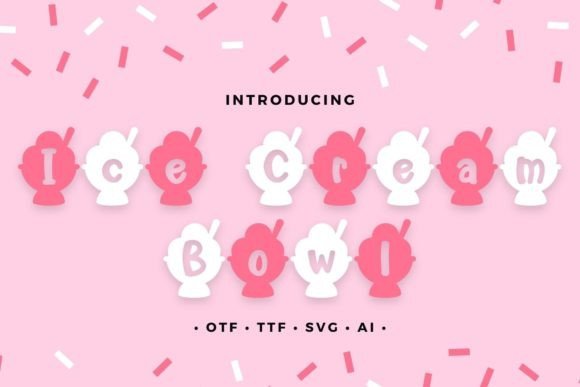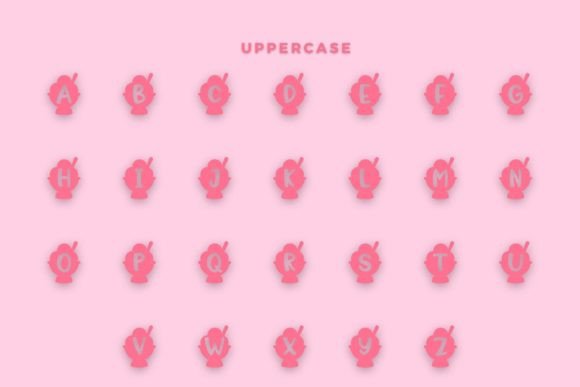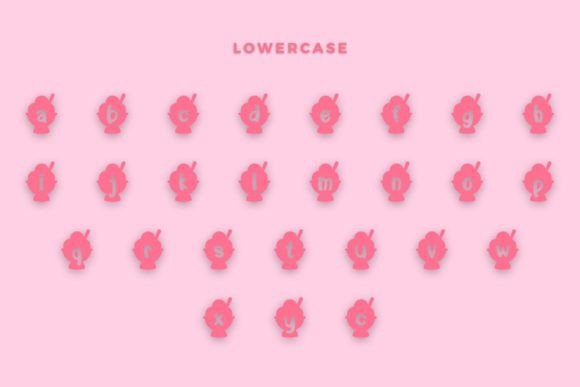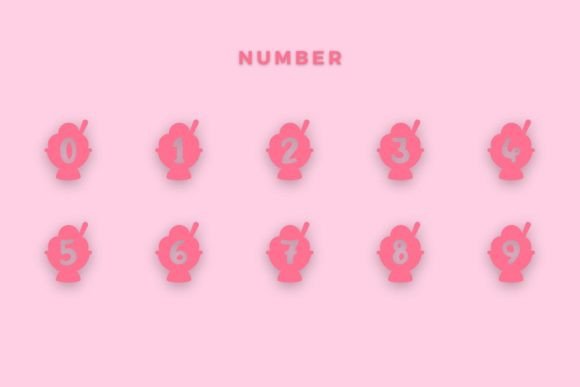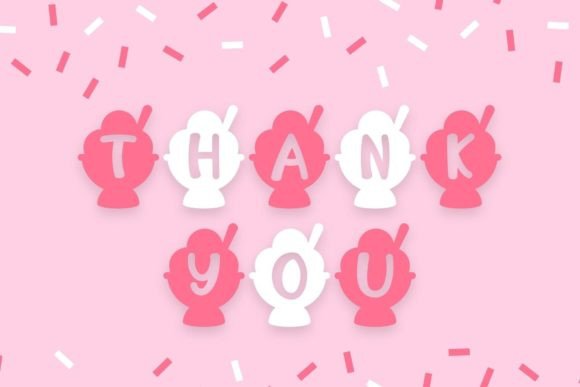
The Sweetest Typography: Unlocking the Magic of Ice Cream Bowl Font
Have you ever stumbled upon a design that instantly made you smile? For many of us, the perfect combination of colors, shapes, and typography can evoke feelings of nostalgia and joy. This is exactly what happens when you add the Ice Cream Bowl Font to your project. Its playful and whimsical nature brings a touch of childhood wonder to any design.
Ice Cream Bowl Font is a versatile decorative font that can be used in a variety of projects, from blog posts and logos to branding, ads, and invitations. Its unique style makes it an ideal choice for designers looking to add a personal touch to their work. By incorporating the Ice Cream Bowl Font into your designs, you can create visually appealing and engaging content that resonates with your audience.
Key Features of Ice Cream Bowl Font
- Font Family: Ice Cream Bowl Font is a unique, handwritten font designed to evoke the feeling of hand-painted ice cream bowls.
- Unique Characteristics: Features a playful, whimsical style with varying line widths, subtle texture, and a mix of cursive and block letterforms.
Designer Review: Ice Cream Bowl Font
Overall, I think the Ice Cream Bowl Font has some great qualities, but it’s not without its limitations.
- Unique and playful design: The font’s whimsical nature makes it perfect for casual or children’s projects.
- Good for small text: The font’s boldness and clear lines make it easy to read in smaller sizes.
- Cute and endearing: The font’s rounded edges and friendly feel make it great for projects that need a warm, inviting tone.
- Not ideal for formal projects: The font’s casual nature may not be suitable for formal or professional projects.
- Lack of versatility: The font’s design may not lend itself well to more complex or detailed projects.
- May not be readable at large sizes: The font’s boldness can make it difficult to read in larger sizes.
While the Ice Cream Bowl Font has some great qualities, its limitations hold it back from being a truly versatile font. However, for the right project, it could be a great choice.
The Ice Cream Bowl Font is perfect for:
- Birthday invitations and party decorations.
- Food and dessert-themed designs.
- Children’s book illustrations and storybooks.
- Summer-themed designs and beach party invitations.
Remember to have fun and experiment with different font sizes, colors, and styles to get the most out of the Ice Cream Bowl Font!